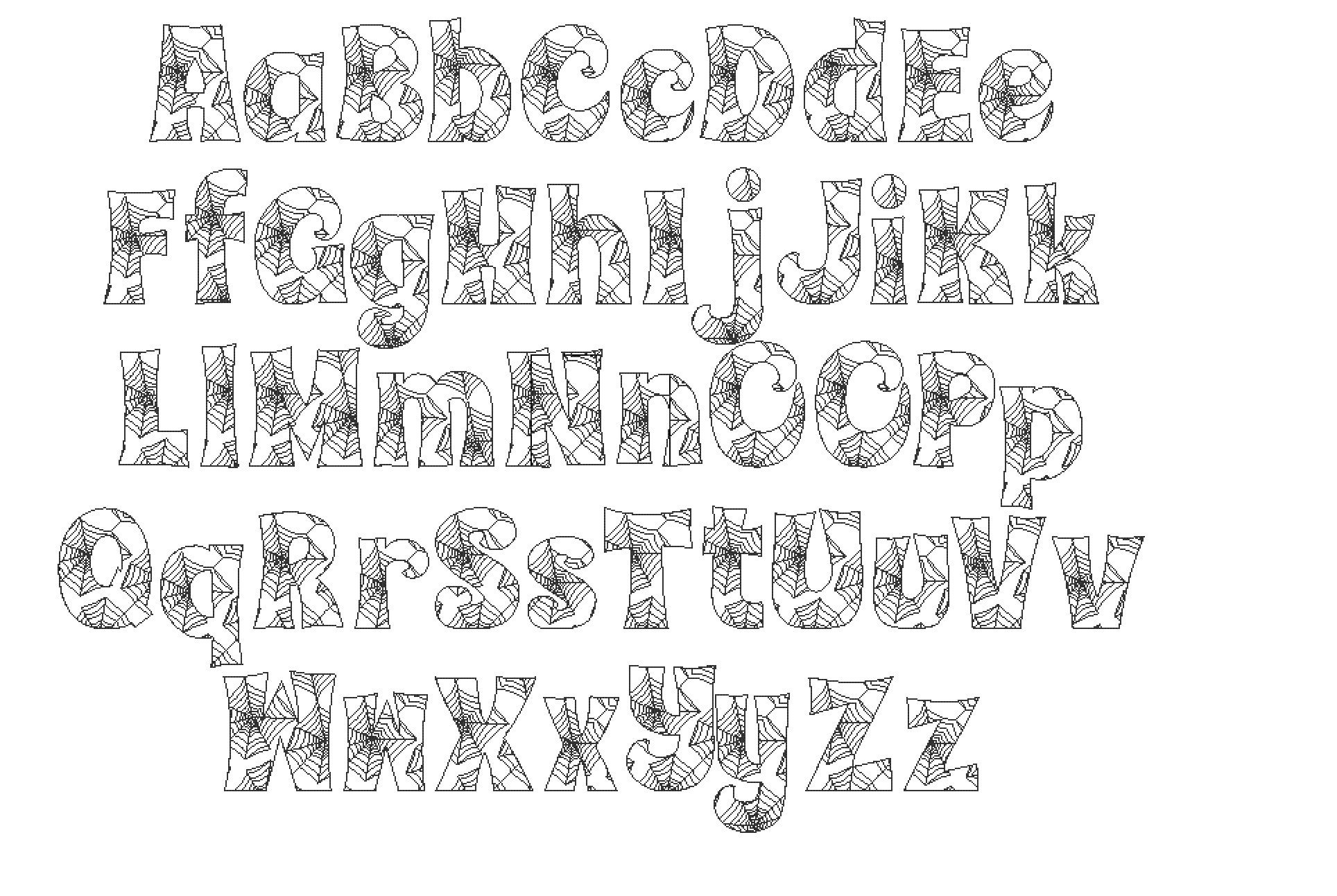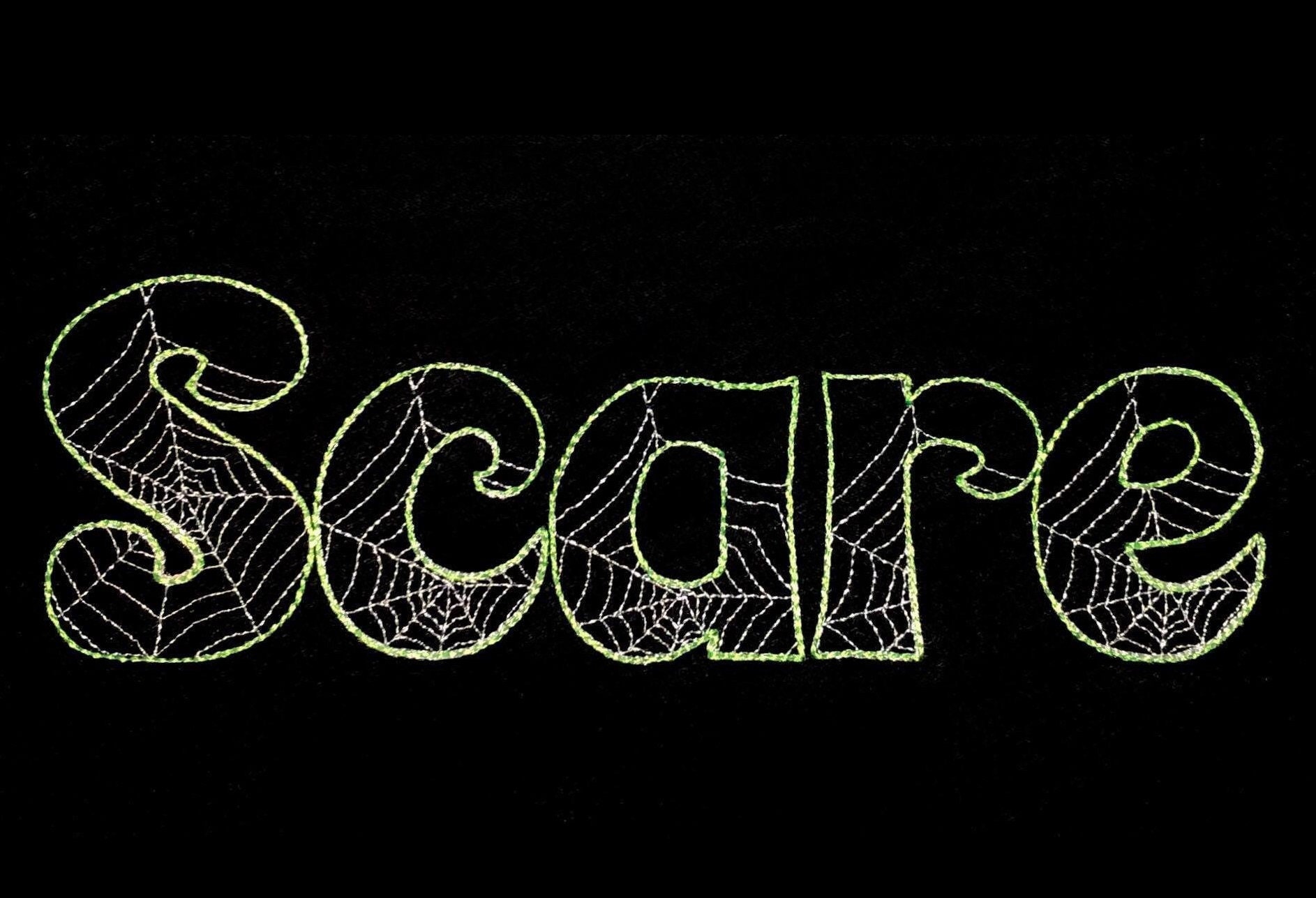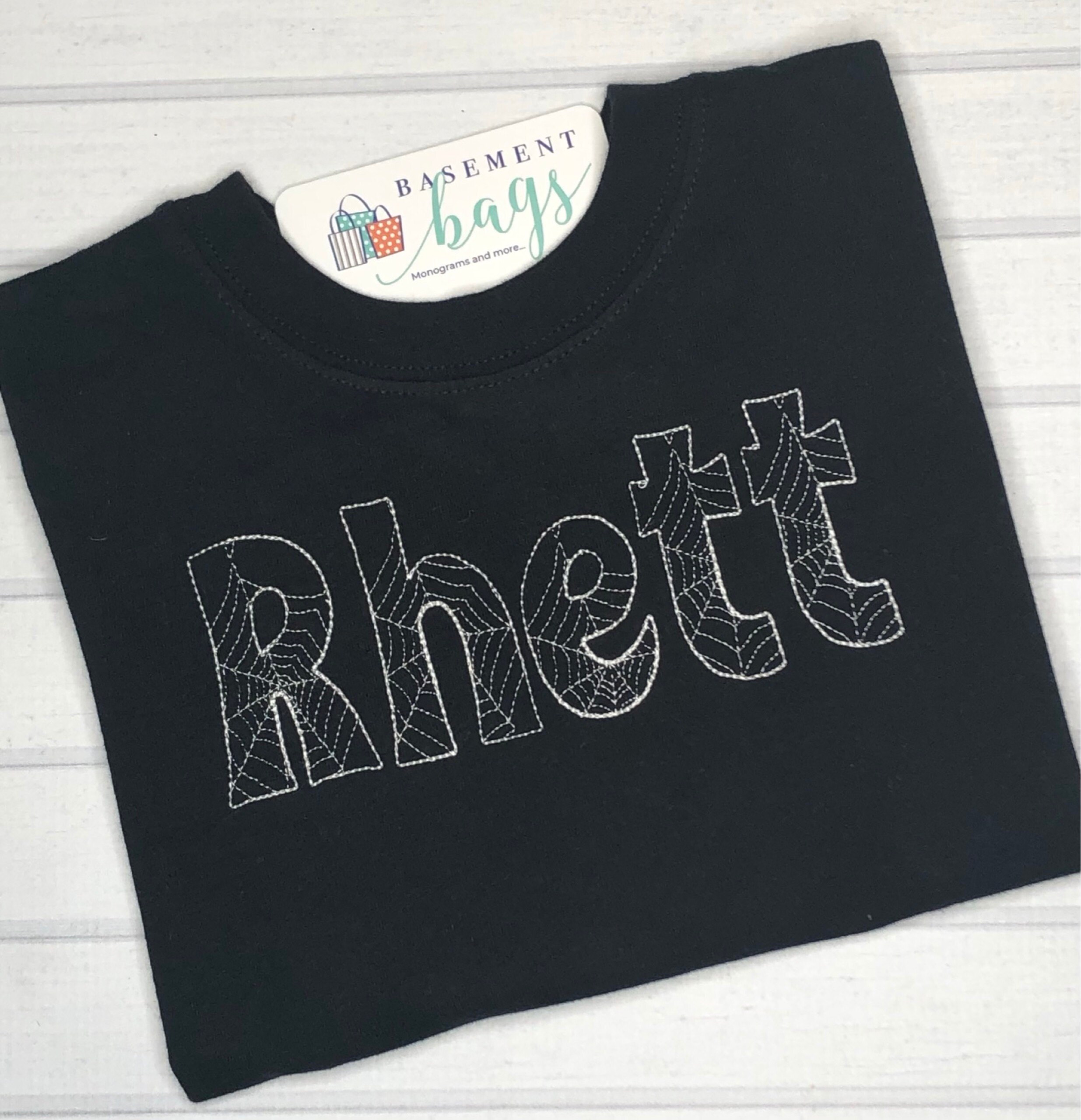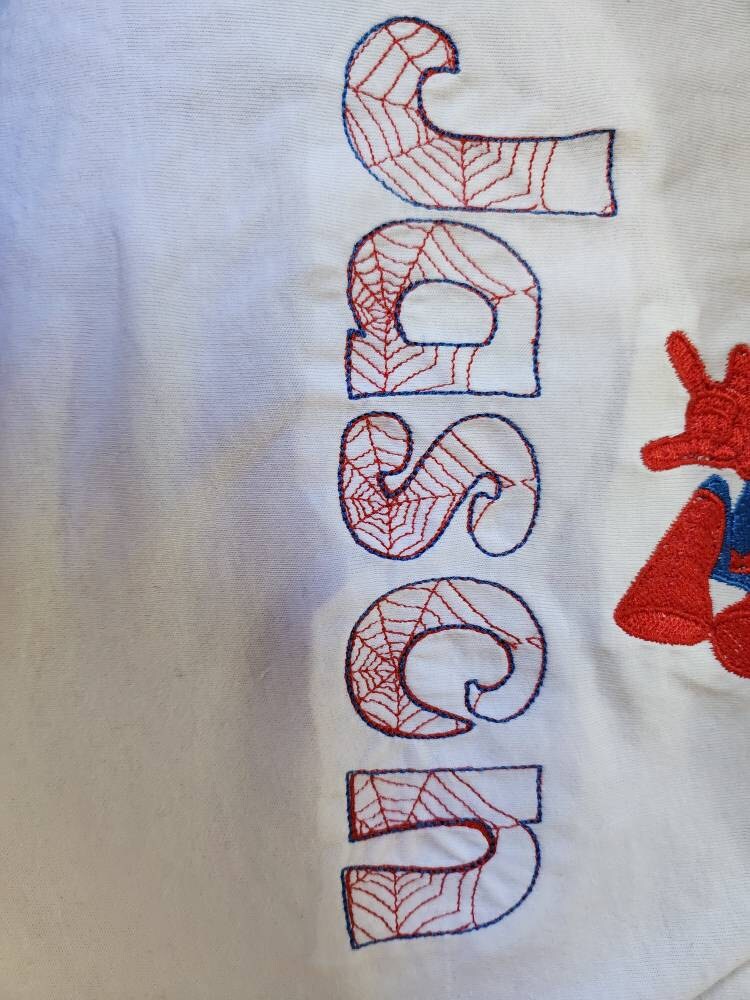
Boo Halloween Font light sketch outline machine embroidery design spider net web kids alphabet letters 1.5, 2, 2.5, 3, 3.5, 4, 4.5 inches BX included
This is a quick stitch design, it looks like lace, and the background fabric looks through. Stunning effect.